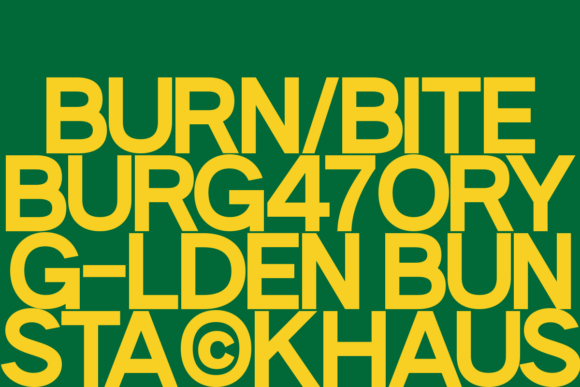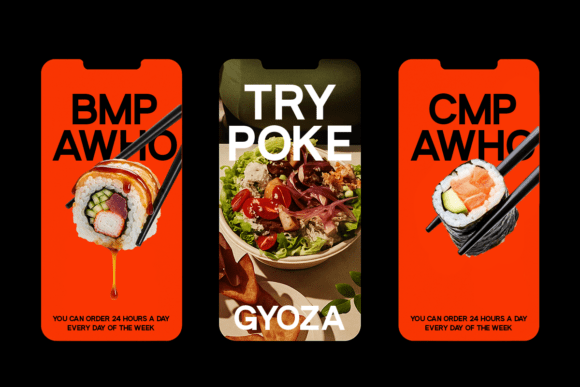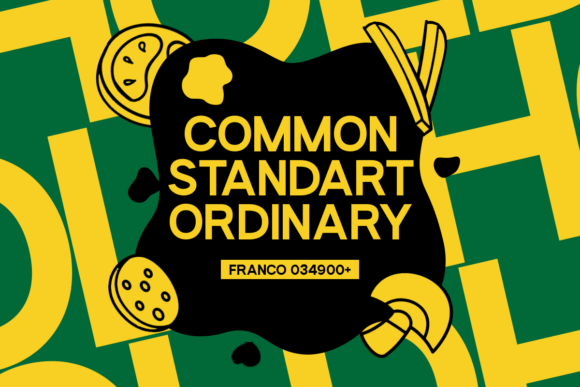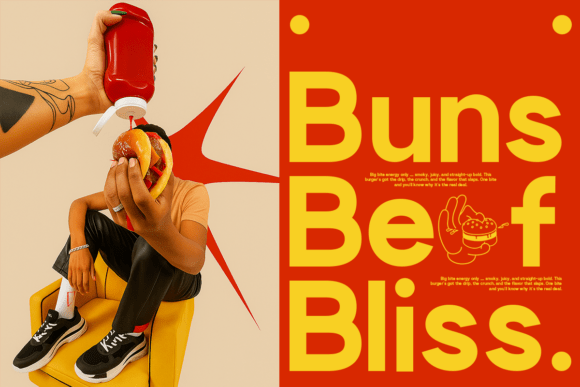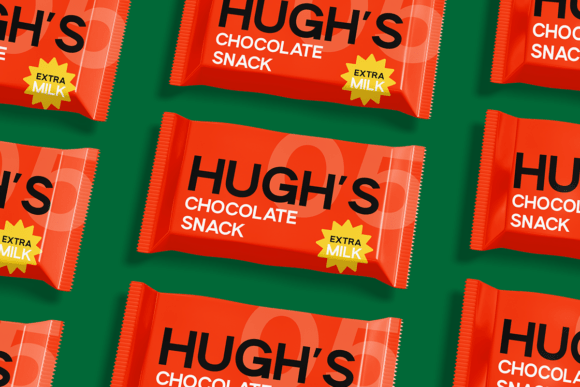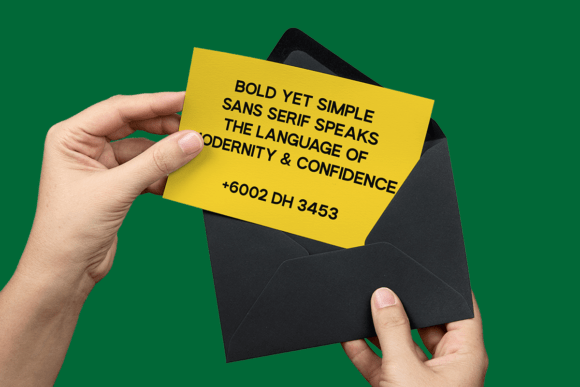
The Perfect Blend of Confidence and Personality: Introducing the Burgendo Font
Have you ever stared at a blank page, waiting for inspiration to strike? That’s exactly where I was when I stumbled upon the Burgendo Font. Its bold sans-serif design immediately caught my eye, and I knew I had to learn more. Designed with a strong geometric structure and playful character details, this font is a masterclass in balance and contrast. Whether you’re a seasoned designer or just starting out, the Burgendo Font is a valuable addition to your toolkit.
With its modern simplicity and subtle personality touches, the Burgendo Font is the perfect choice for branding and headline applications. Its clean construction ensures clarity at large sizes, while unique alternate characters and ligatures add creative flexibility. Whether you’re working with a corporate client or a creative startup, the Burgendo Font delivers a confident yet friendly visual presence that’s sure to make an impact.
- Unique Characteristics: Burgendo features a clean, modern design with a distinctive x-height and a unique set of letterforms that set it apart from other sans-serif fonts.
Burgendo Font Review
As a designer, I’ve had the chance to work with a wide range of fonts, and Burgendo is definitely one that stands out. Here are my honest thoughts:
- Unique character set: Burgendo has a distinct personality that sets it apart from other sans-serif fonts.
- Good legibility: The font is clear and easy to read, even at smaller sizes.
- Modern feel: Burgendo has a sleek, contemporary look that’s perfect for modern designs.
- Limited language support: Burgendo’s character set is limited to a few languages, which may be a problem for international designs.
- Not ideal for small text: While Burgendo is legible, it’s not the best choice for very small text sizes.
Overall, I think Burgendo is a solid choice for modern designs that need a unique, sleek font. However, its limitations may make it less suitable for certain projects. If you’re looking for a font that’s a bit different, Burgendo is definitely worth considering.
Experiment with different font sizes, colors, and combinations to achieve unique designs. Use Burgendo Font for headings, titles, and emphasis to create visual hierarchy in your designs.
Burgendo Font is ideal for:
– Creating modern and trendy designs
– Adding a touch of sophistication to headings and titles
– Designing for social media, websites, and marketing materials
Alternatives to Burgendo Font for Designers
Monserrat is a sans-serif typeface that is highly legible and versatile. It is ideal for use in digital media, such as websites and mobile apps, and is also suitable for print materials like business cards and brochures. Compared to Burgendo Font, Montserrat has a more geometric and modern feel, making it a great choice for designers who want a clean and minimalist aesthetic.
Lato is a sans-serif typeface that is highly readable and adaptable. It is suitable for use in a wide range of applications, from body text to headings, and is particularly well-suited for use in digital media. Compared to Burgendo Font, Lato has a more rounded and friendly feel, making it a great choice for designers who want to create a welcoming and approachable brand identity.
Open Sans is a sans-serif typeface that is highly legible and versatile. It is suitable for use in a wide range of applications, from body text to headings, and is particularly well-suited for use in digital media. Compared to Burgendo Font, Open Sans has a more neutral and clean feel, making it a great choice for designers who want to create a professional and modern brand identity.